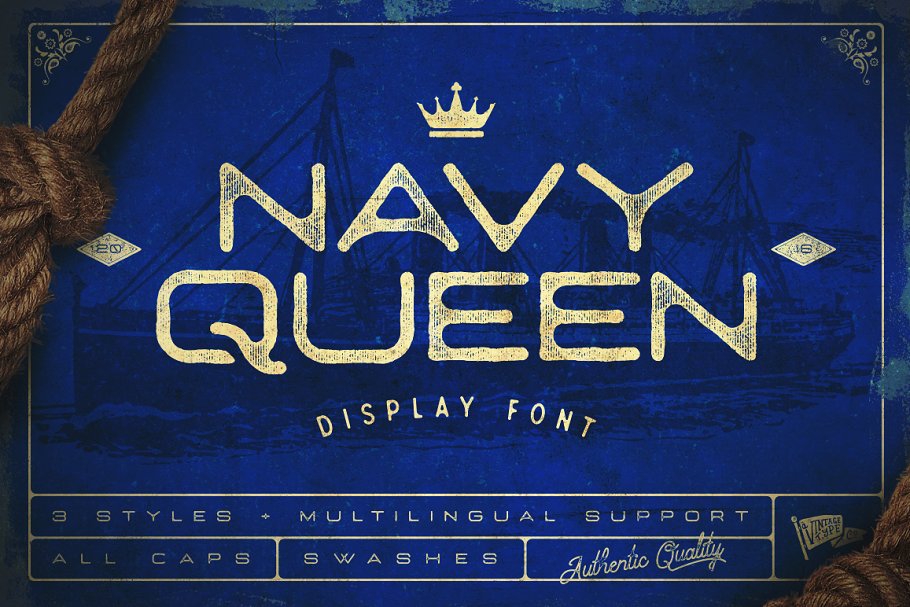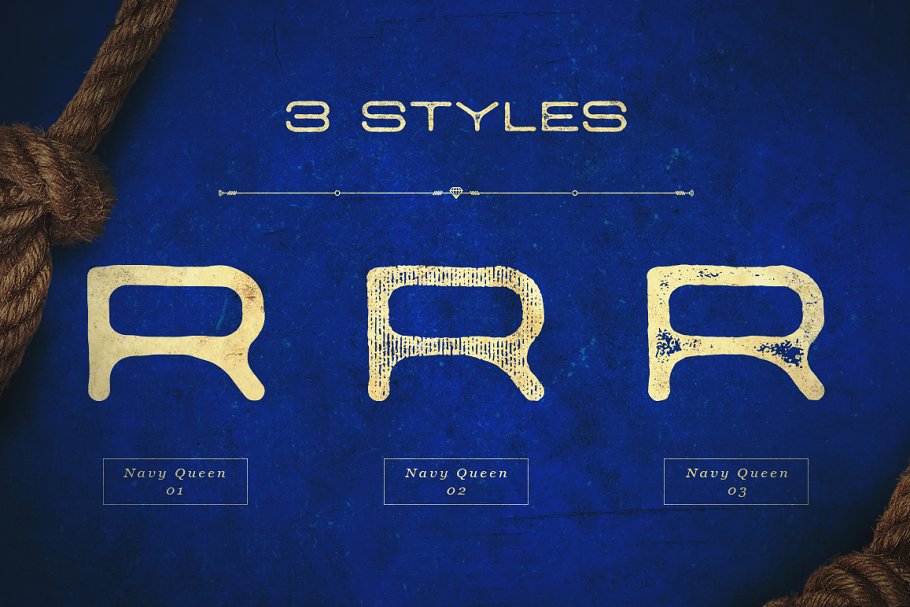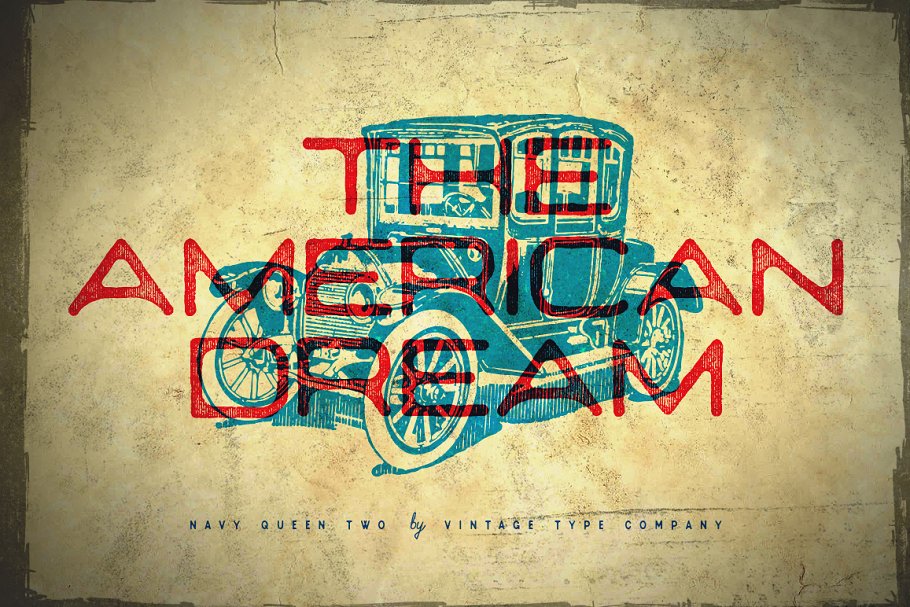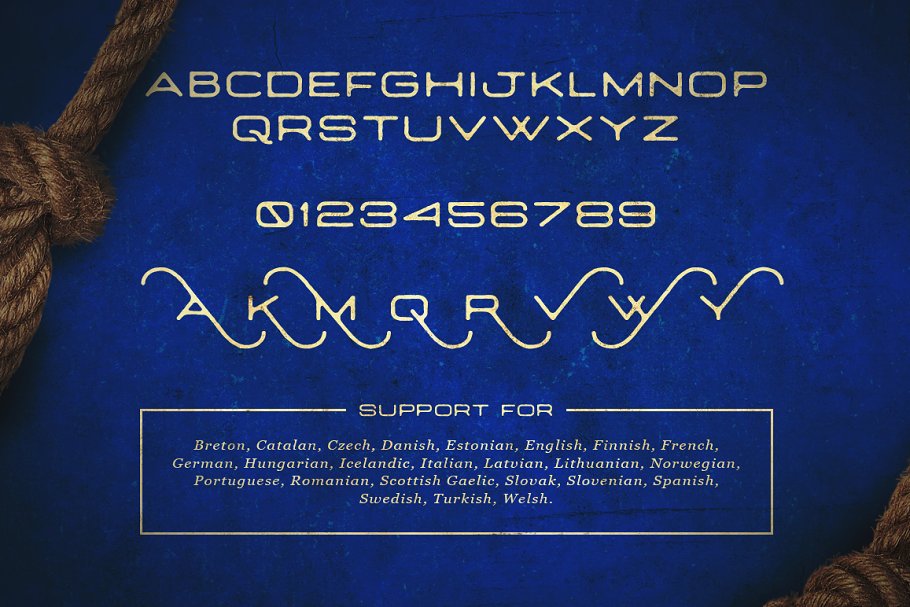
About the Navy Queen Display Font
Navy Queen is a over-extended, geometrically designed sans serif display font that pays homage to simpler times, This font will act as a great addition to any vintage design project including posters, logos, crests, packaging, and so much more!Navy Queen comes in a clean style, as well as two varying styles of distressing, It also comes equipped with support for a variety of latin languages, as well as bonus swashes